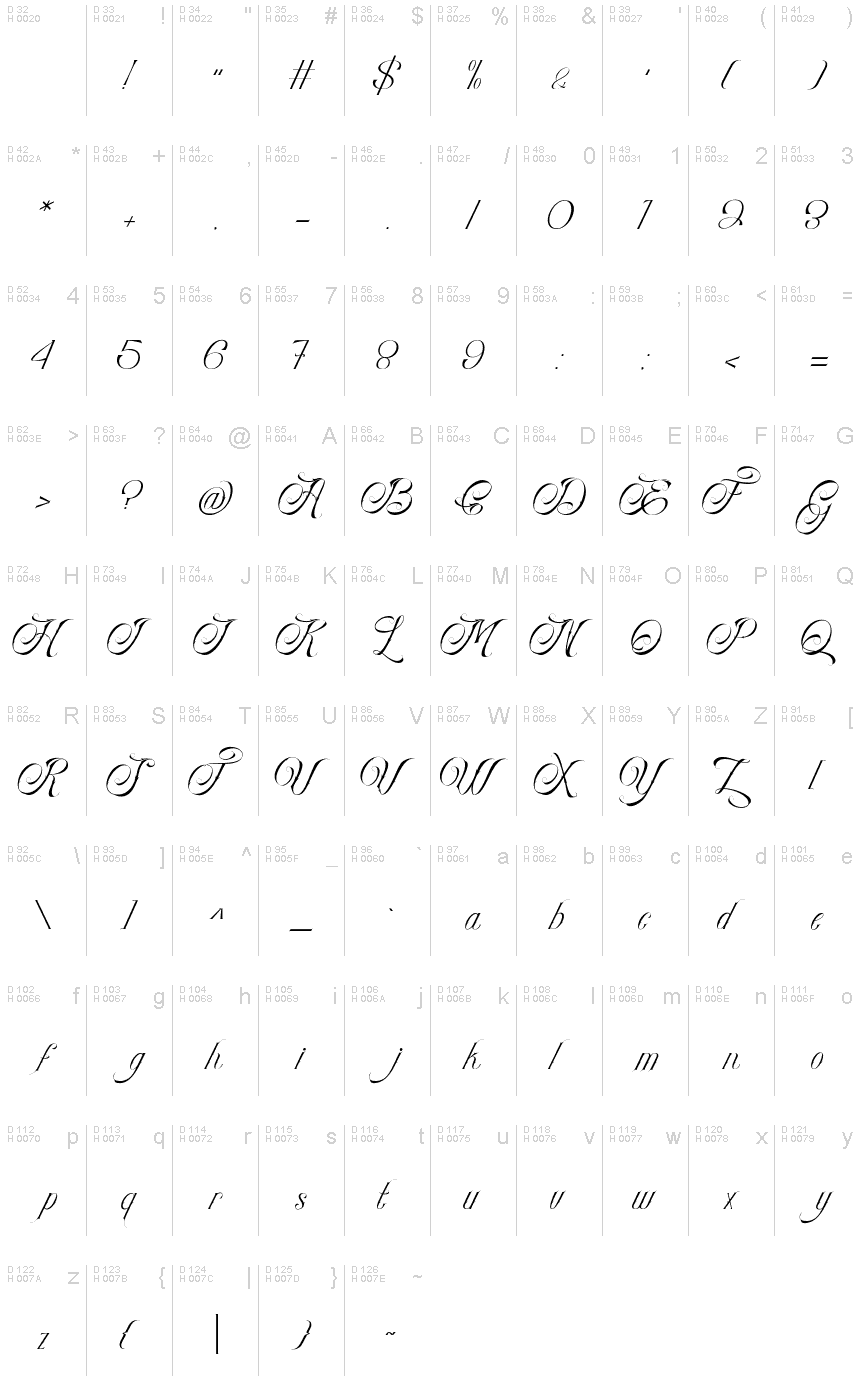
The Masquito
The Masquito, crafted by Ibram Syah, is a stunning semi-light calligraphy font that will add sophistication and elegance to any project. With its flowing strokes and graceful curves, this font is perfect for wedding invitations, greeting cards, and other formal occasions. Its delicate lines make it an ideal choice for branding and logo design. Additionally, The Masquito's versatility allows it to be used in a variety of projects such as book covers, magazines, and posters. Its design ensures that your content will be easily readable while still maintaining its unique style. Embrace the timeless beauty of The Masquito today!